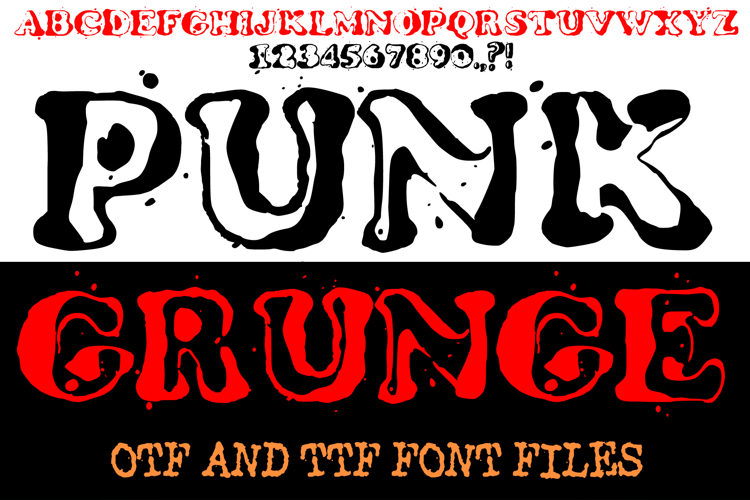
Punk Grunge Textured Ink Stamp Letters Font ABC Text
This new Grunge Punk font is a bold, decorative display typeface that perfectly captures the raw, imperfect aesthetic of a hand-made ink stamp. Each letter has been uniquely designed with a thick, distressed outline and a solid interior, creating a heavy, stamped impression. The edges are intentionally messy, featuring splatters, drips, and a rough, worn texture that gives it an authentic grunge feel.
Ideal for adding a rebellious or edgy touch to your designs, this font is perfect for posters, album covers, band merchandise, logos, apparel, and any project that needs a powerful, attention-grabbing headline.